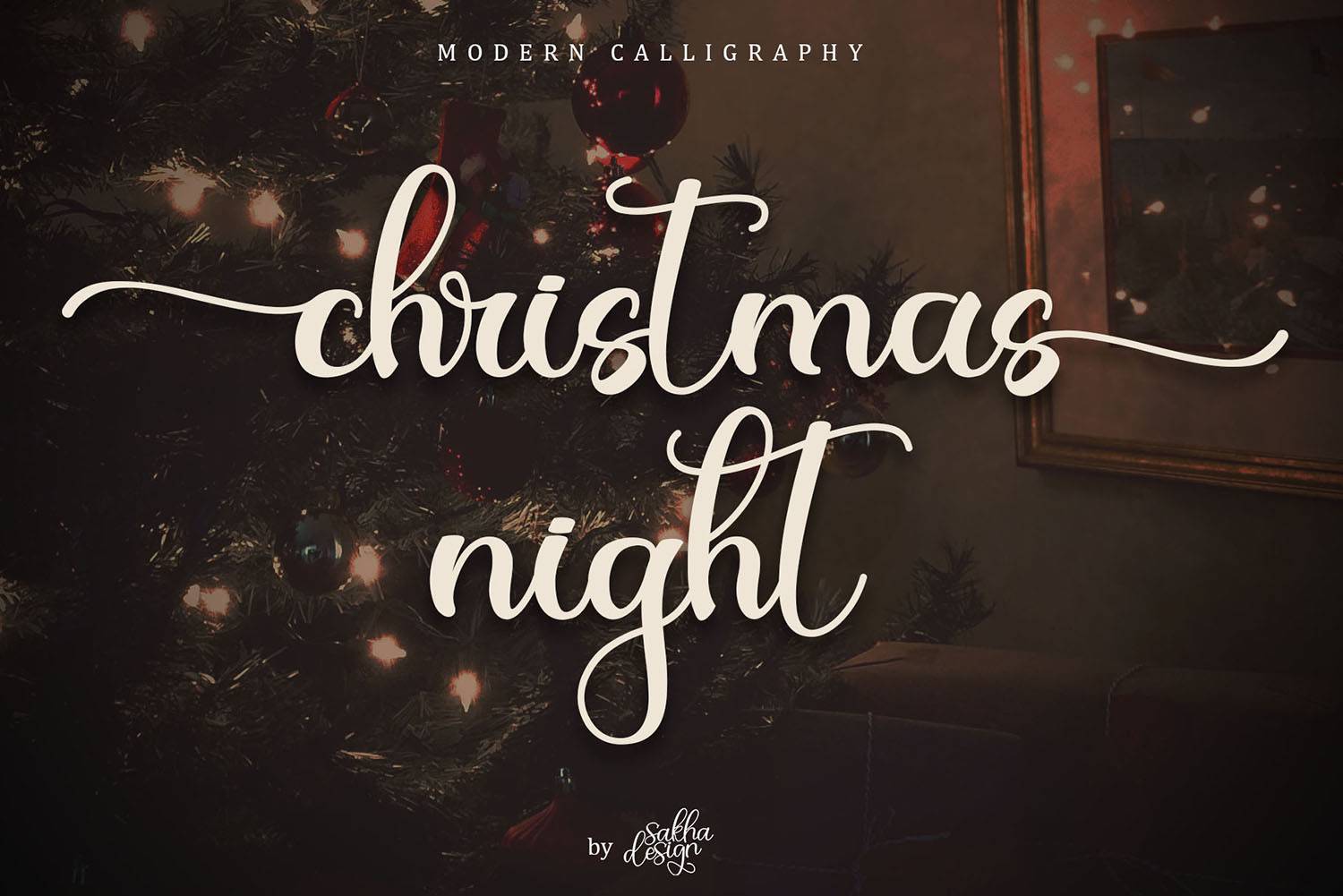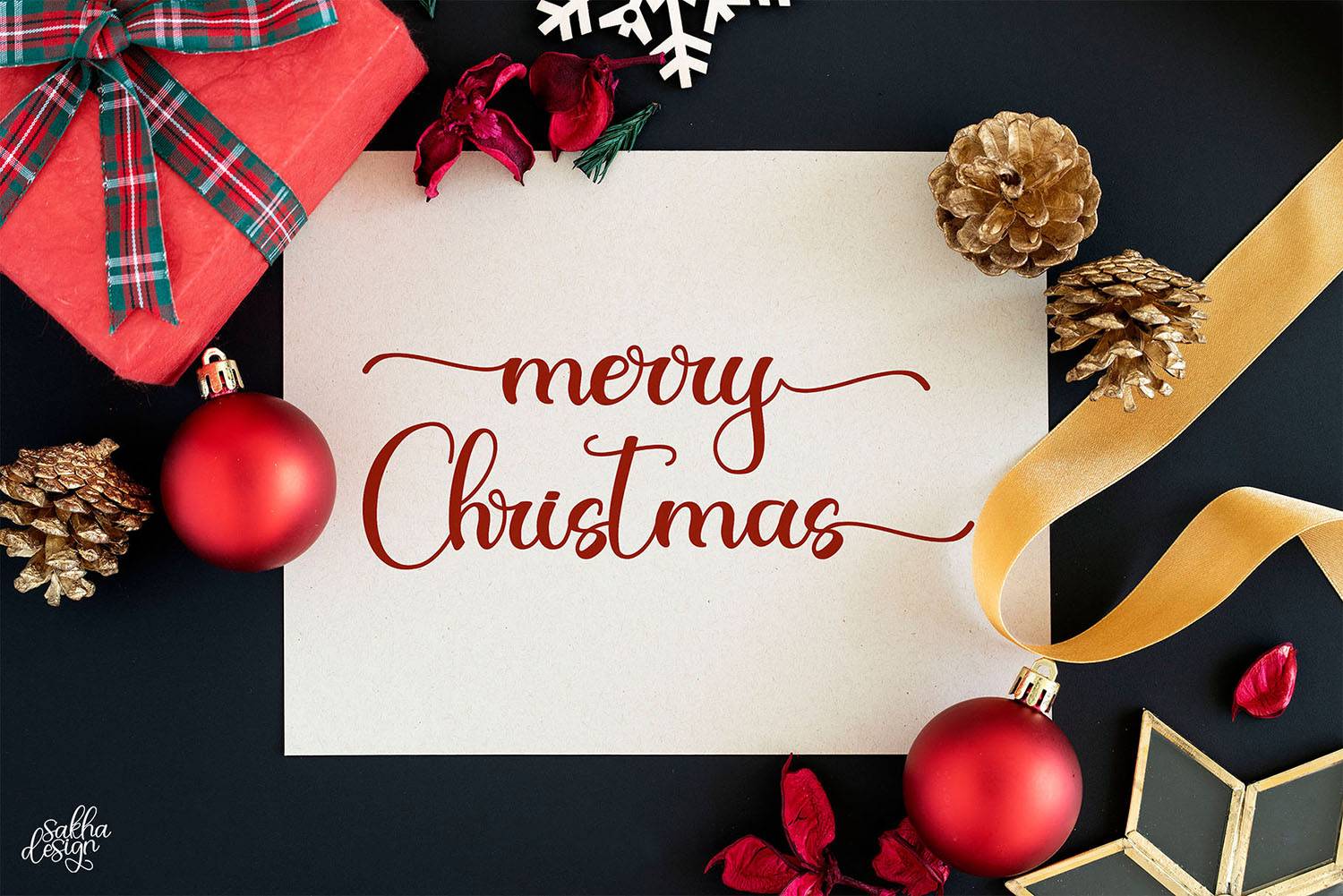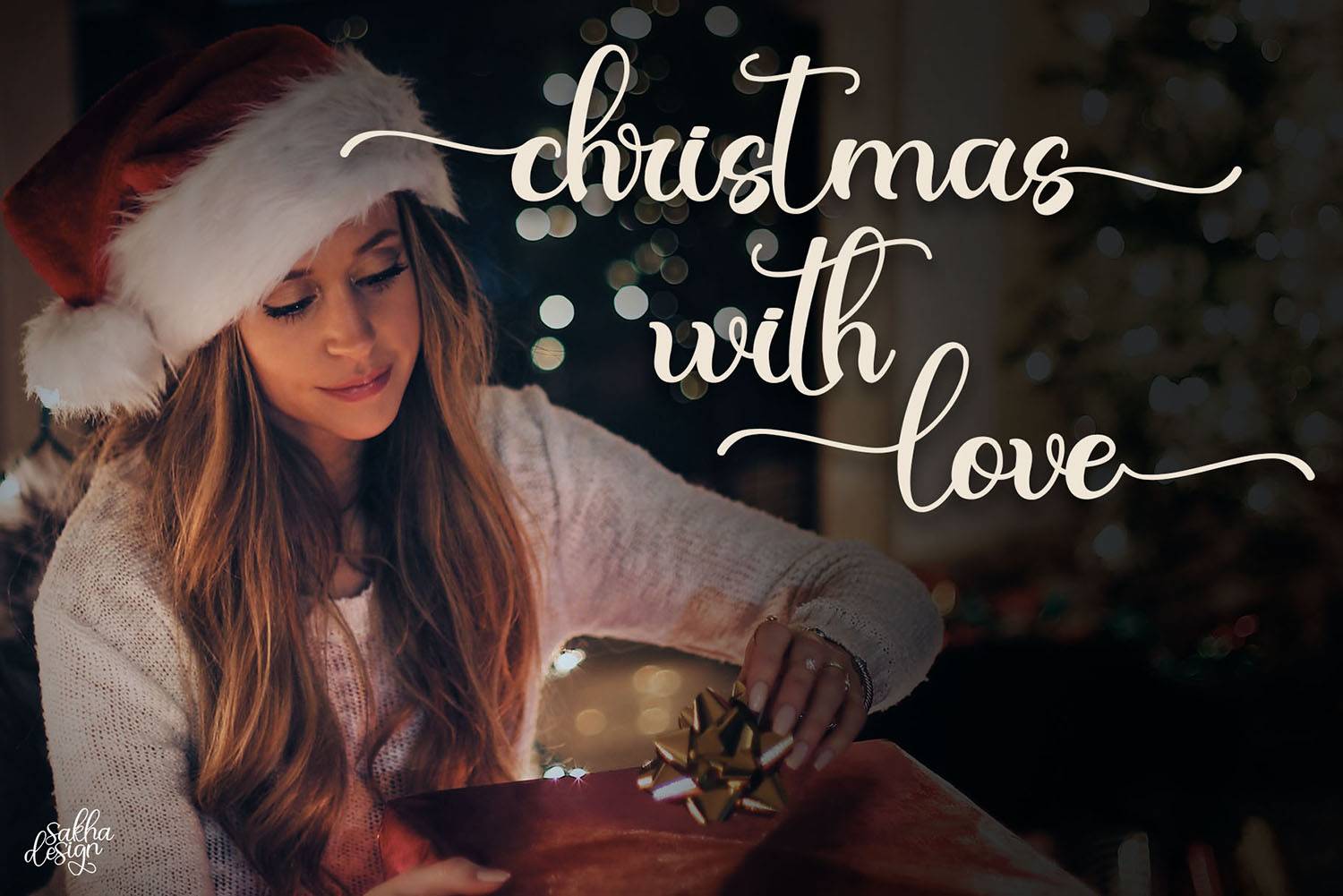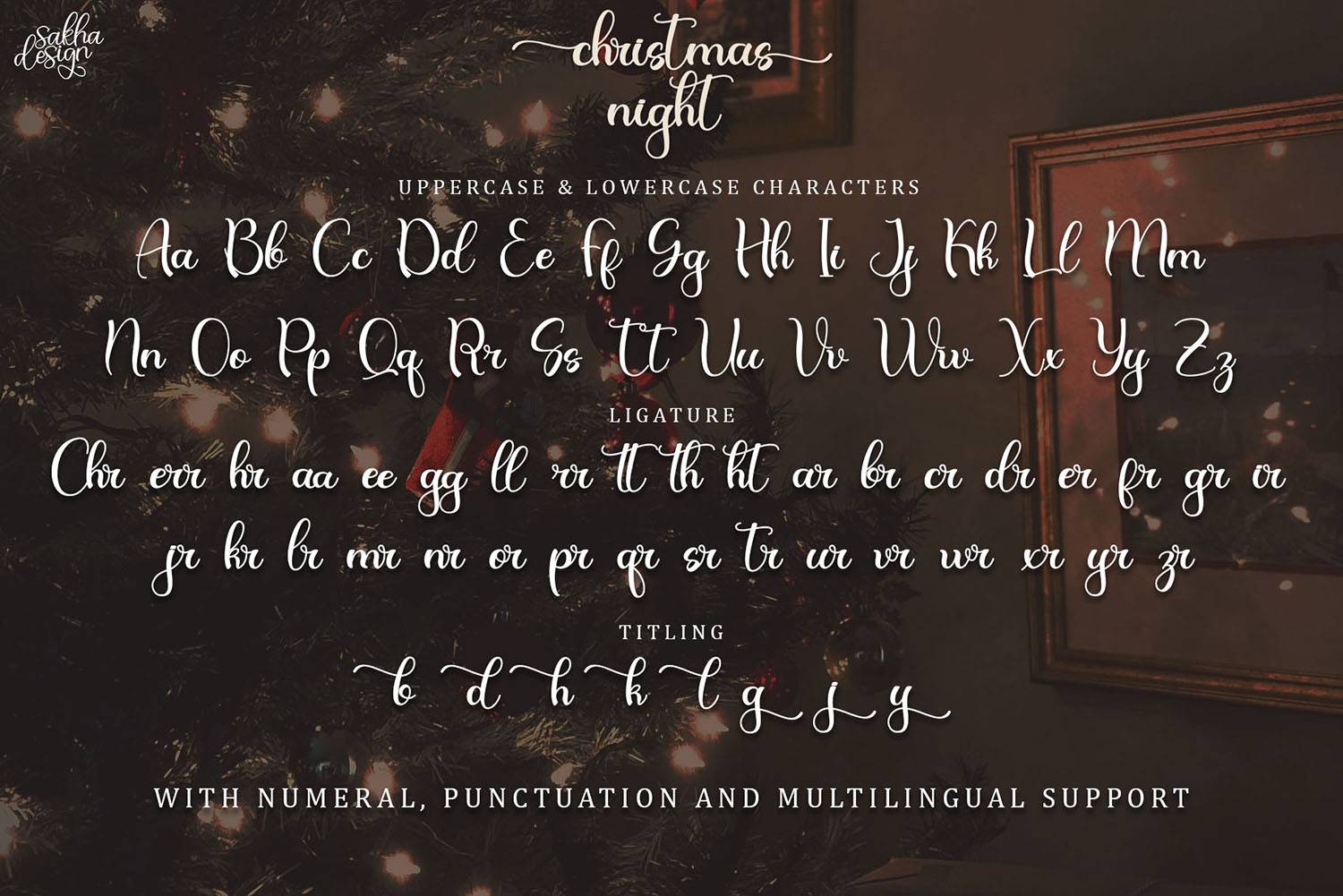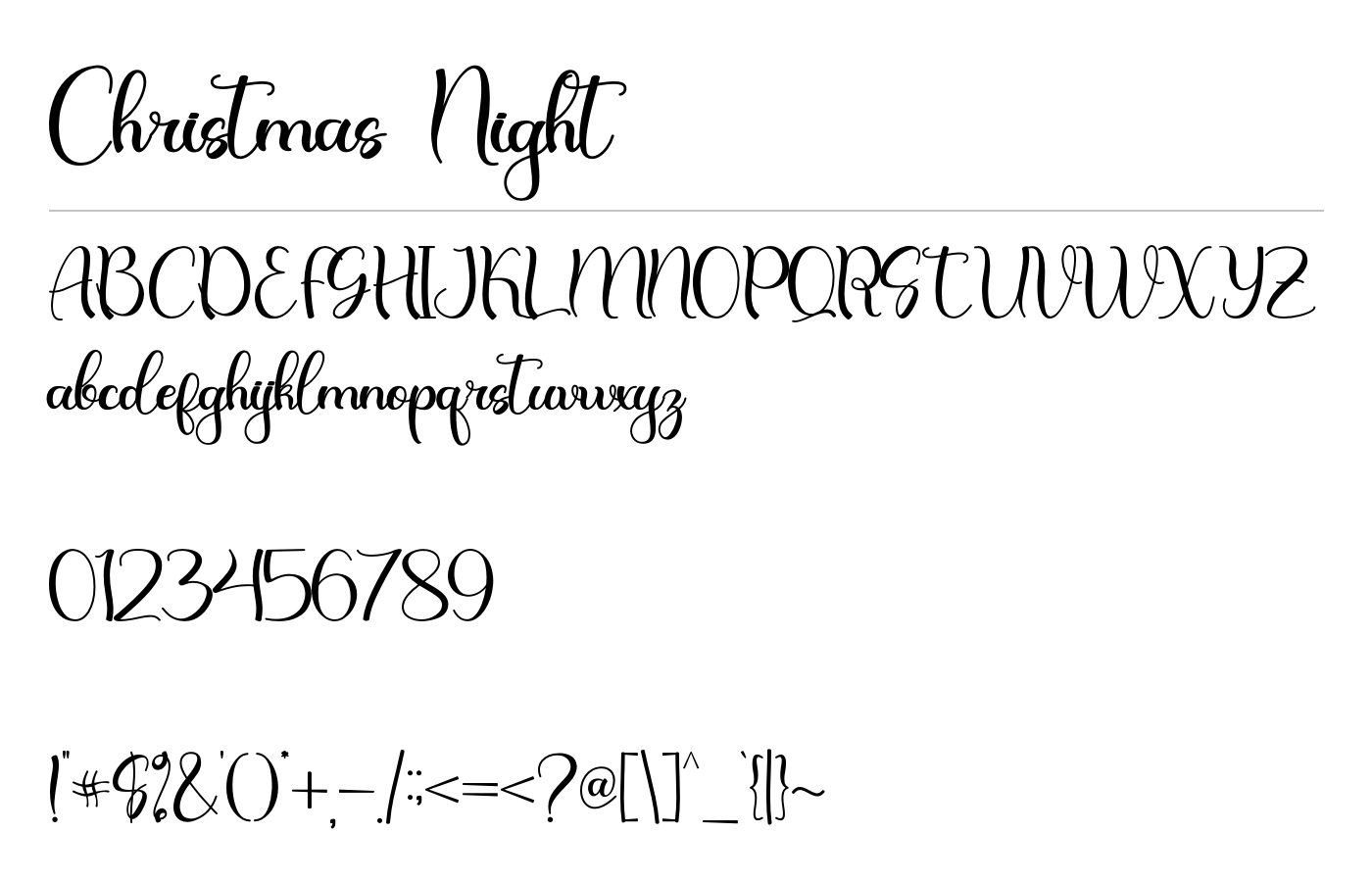
Christmas Night Font is a stylish and elegant script font with delicate, flowing strokes that create a warm, festive feeling. Its slender letterforms with charming loops and soft curves make it perfect for holiday-themed designs, invitations, and branding that seek a graceful and inviting look. This font shines in decorative contexts where a touch of sophistication and cheerfulness is desired.
Christmas Night Font
About Christmas Night Font